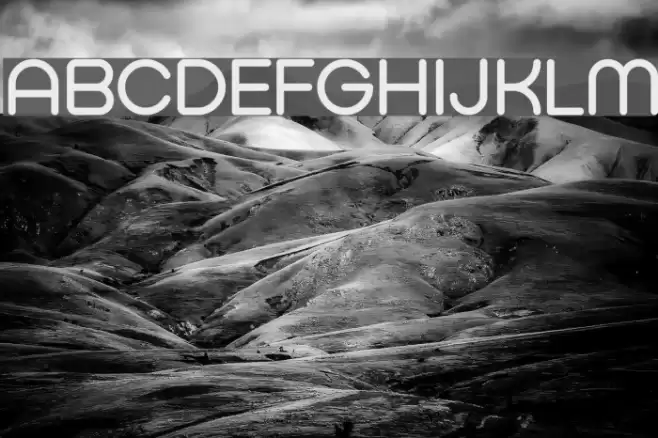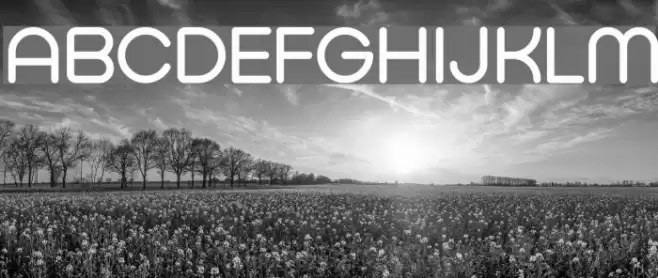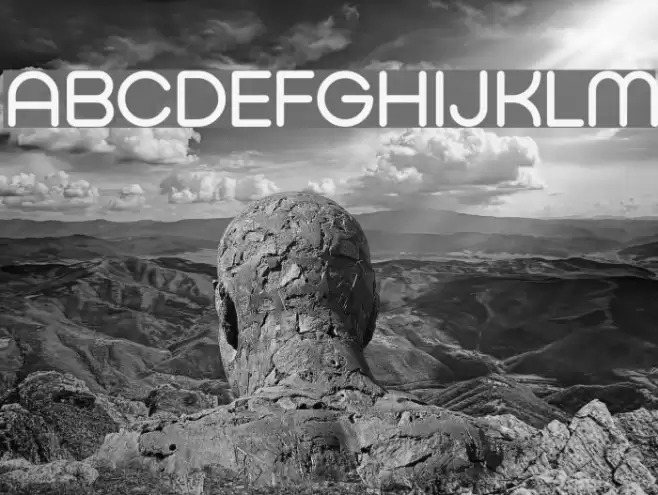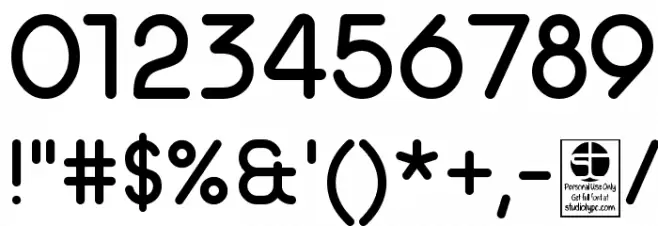
Typo Hoop Demo Font
Typo Hoop Demo Description
This font features a modern, rounded sans-serif style with a clean and minimalistic appearance. Each character is crafted with smooth curves and consistent stroke widths, giving it a friendly and approachable look. The letters are evenly spaced, contributing to a harmonious and balanced visual flow. The numerals and special characters maintain the same rounded aesthetic, ensuring uniformity across all glyphs. This font is versatile, suitable for both digital and print media, and can be used to convey a contemporary and professional tone.
A modern, rounded sans-serif font with a clean and minimalistic style from Uncategorized fonts.
- Proposed Projects: Ideal for branding, web design, user interfaces, and advertising materials.